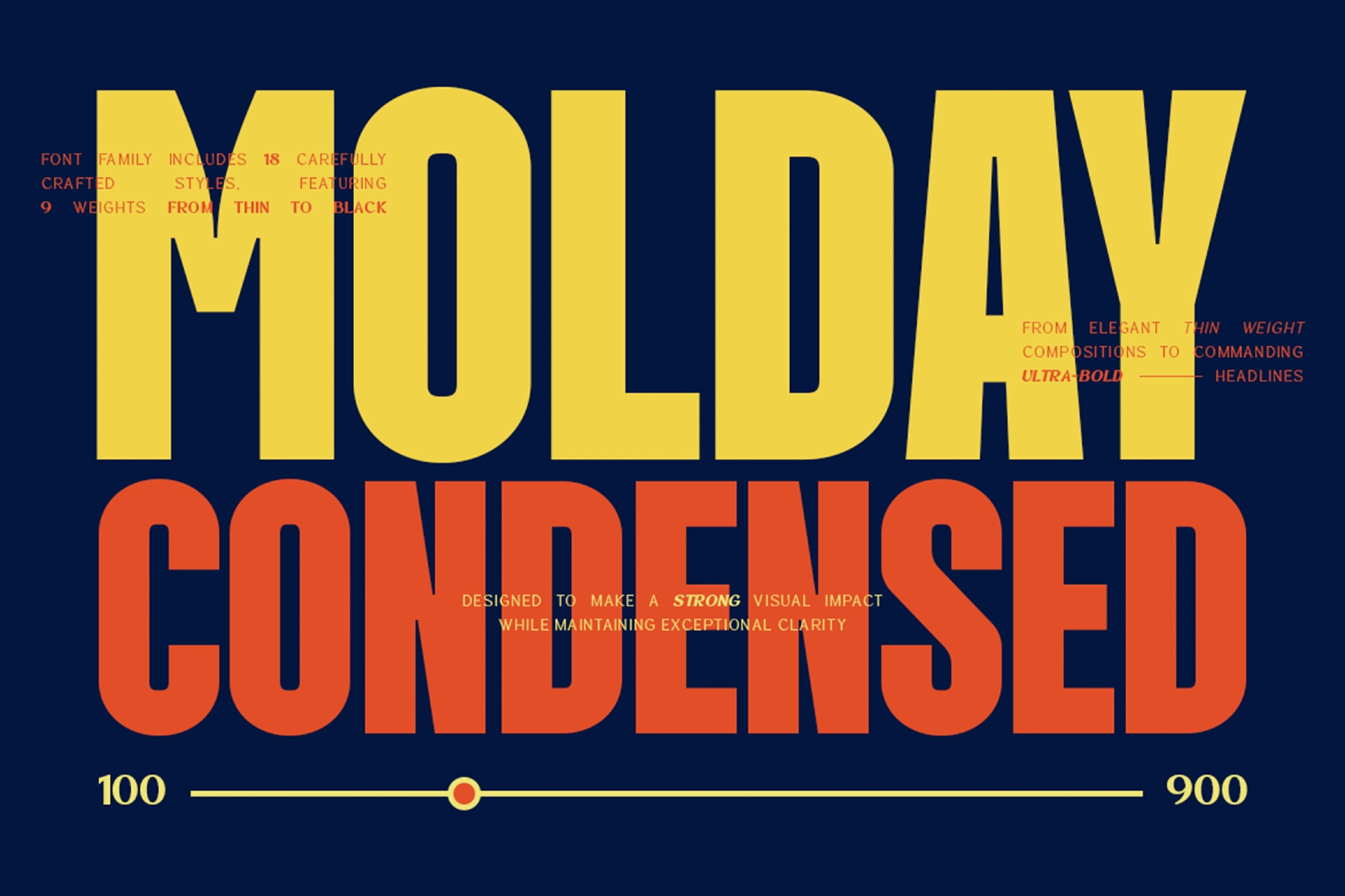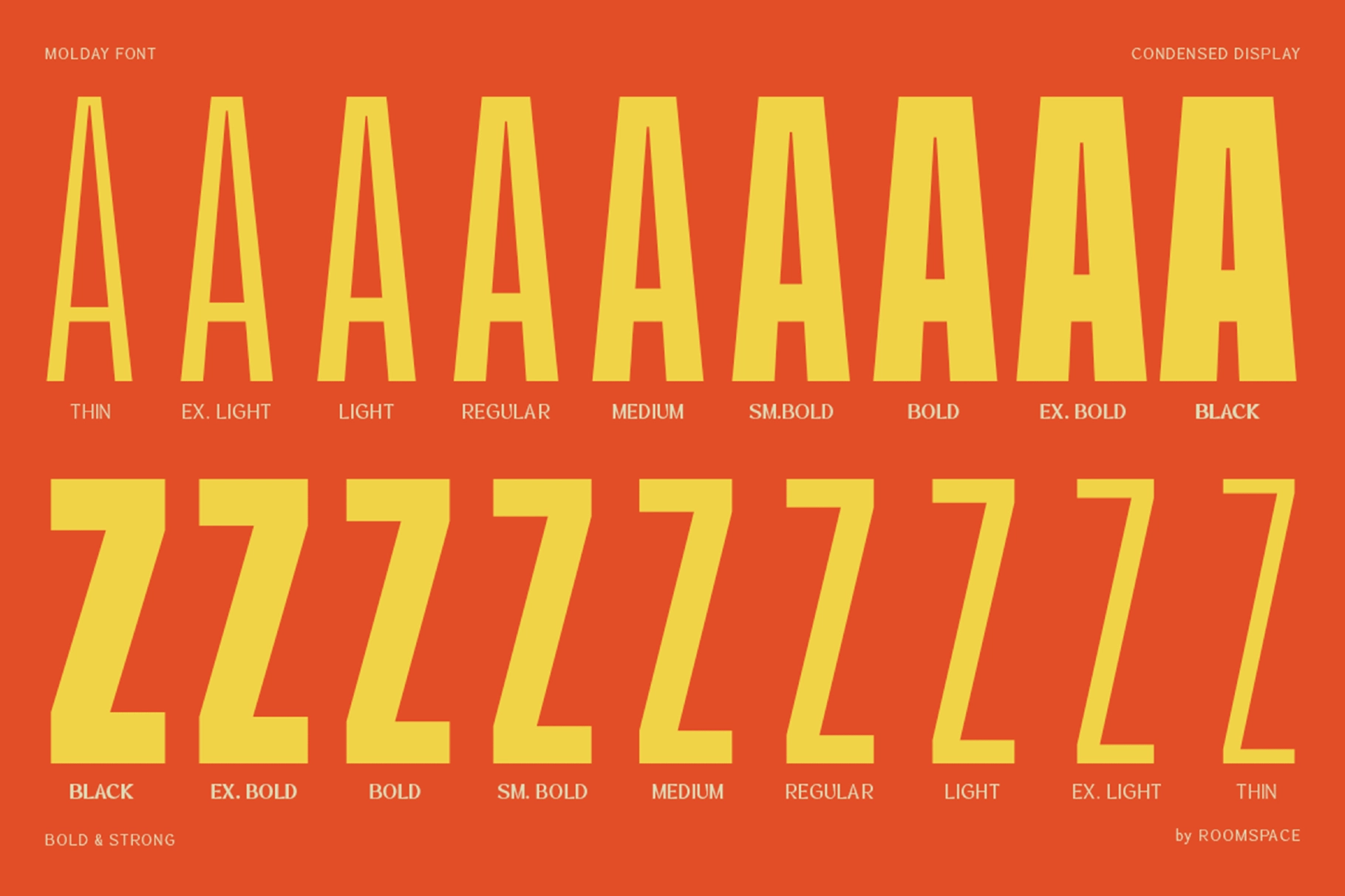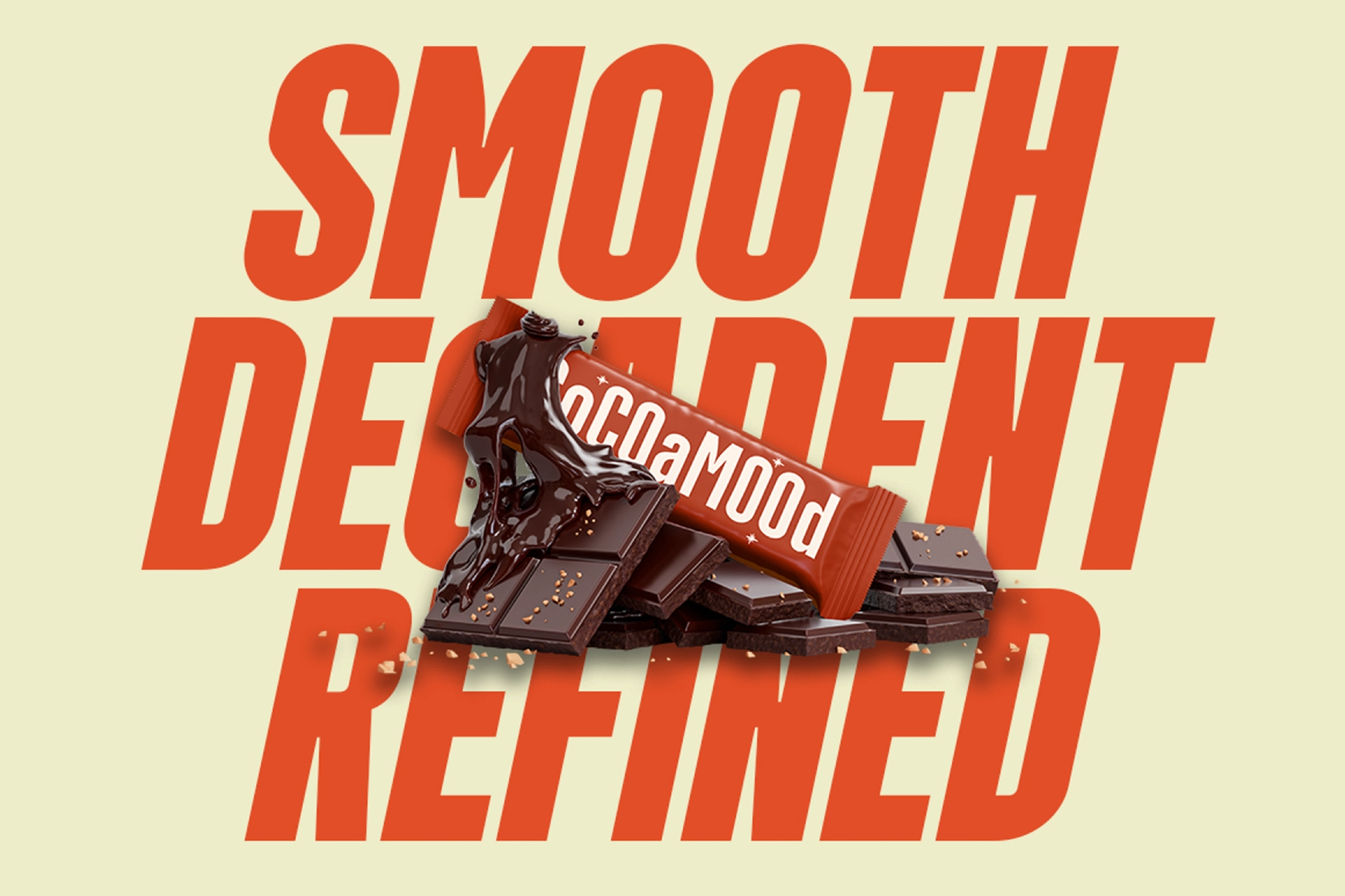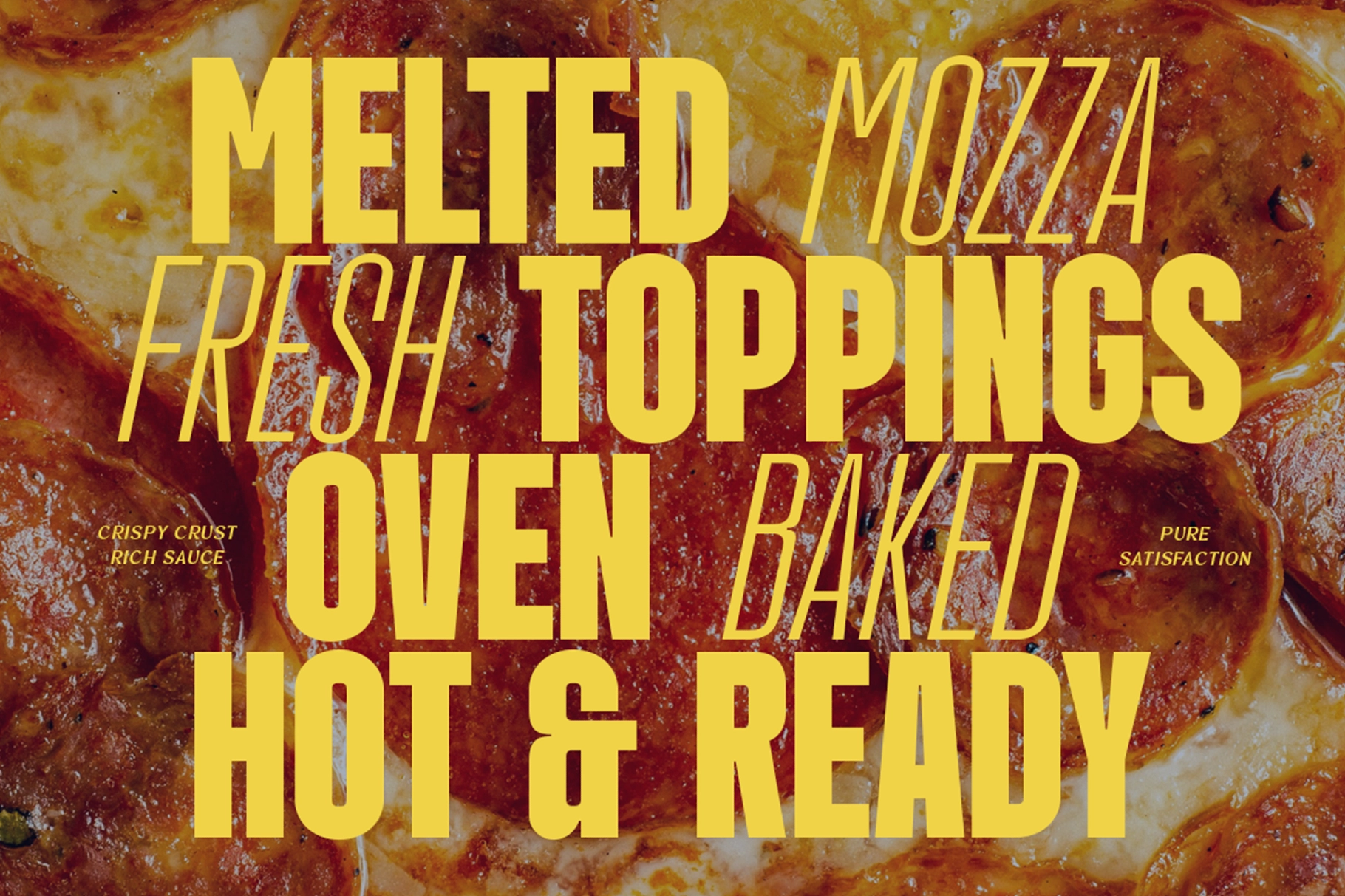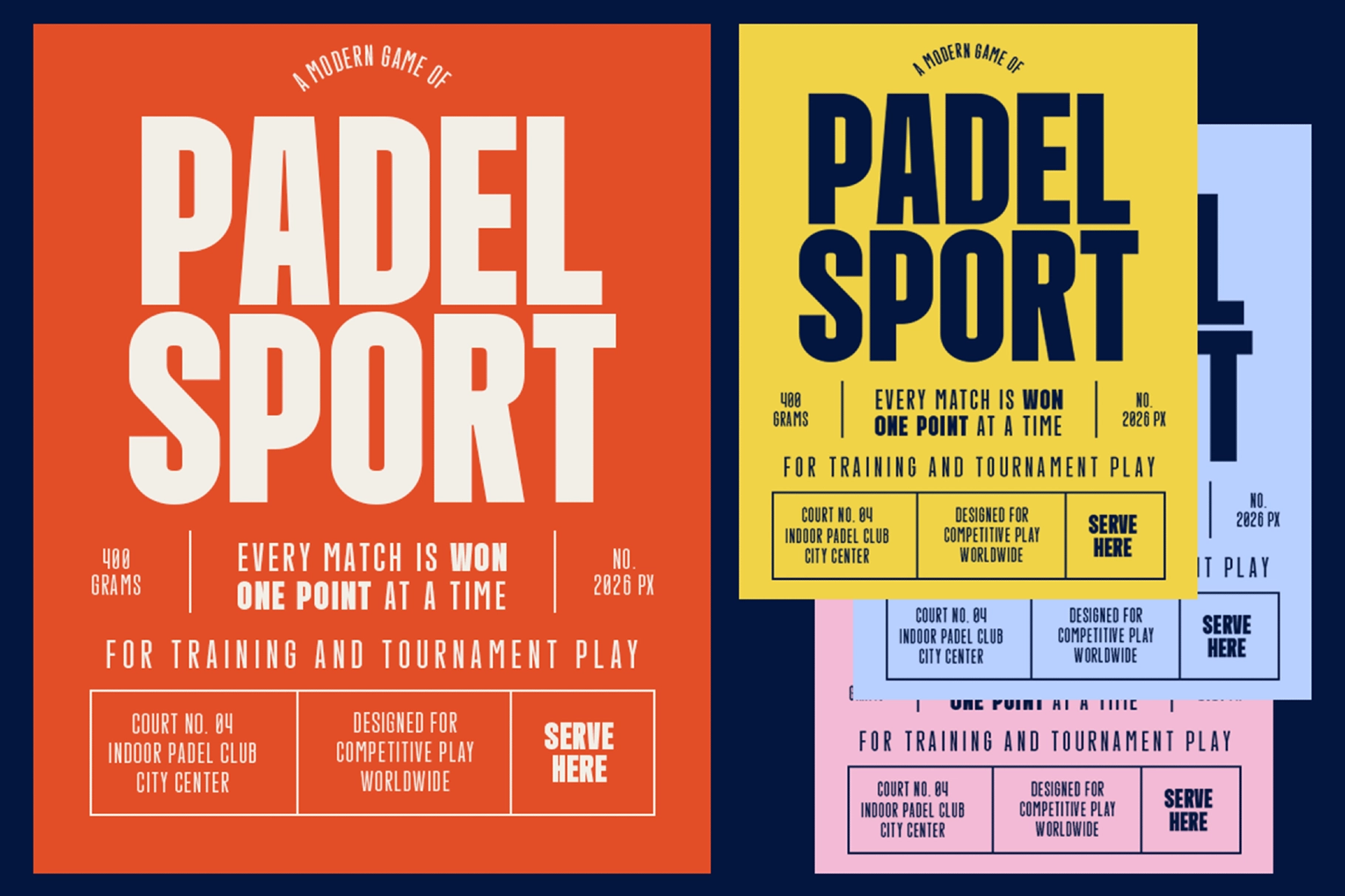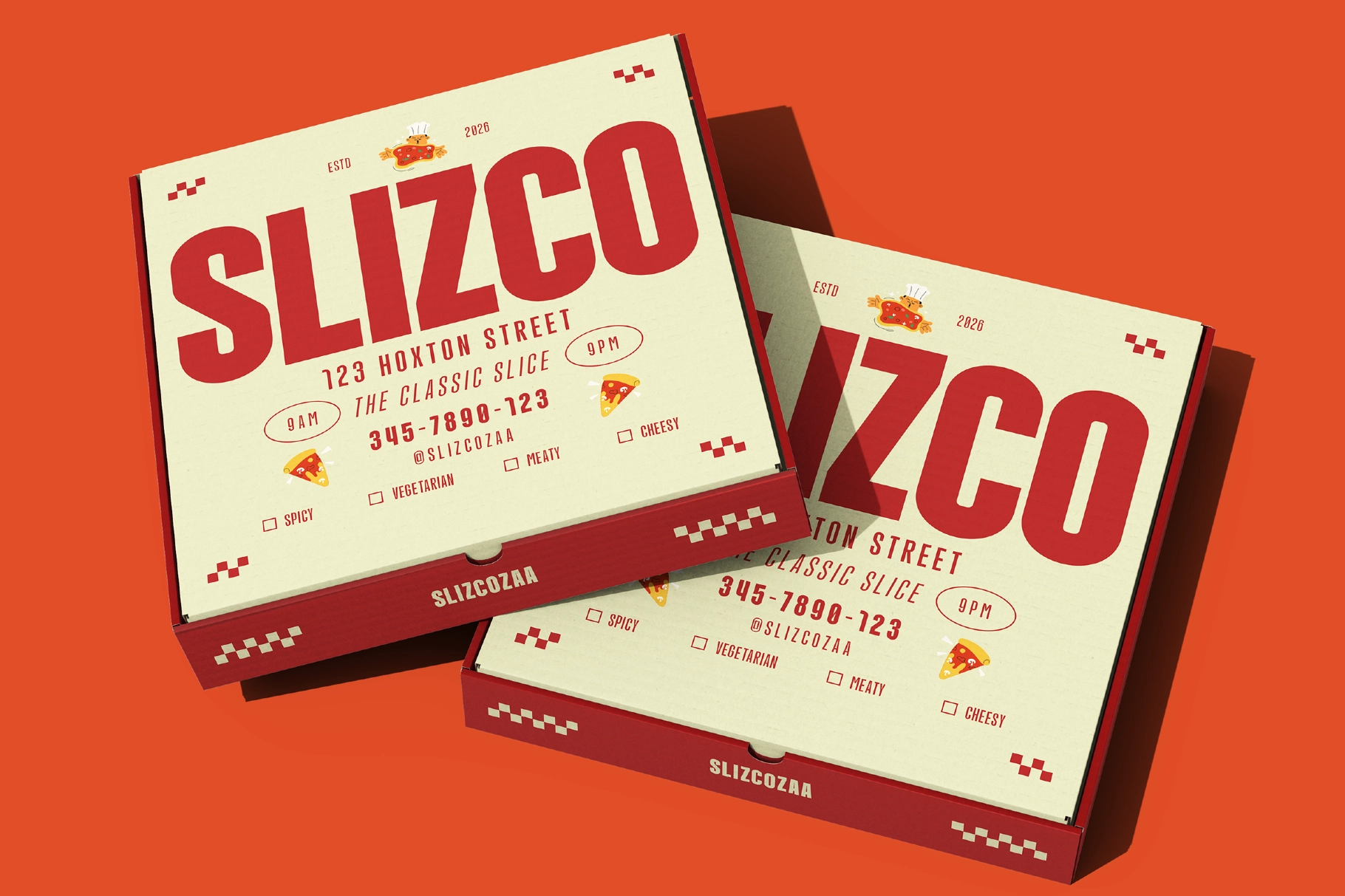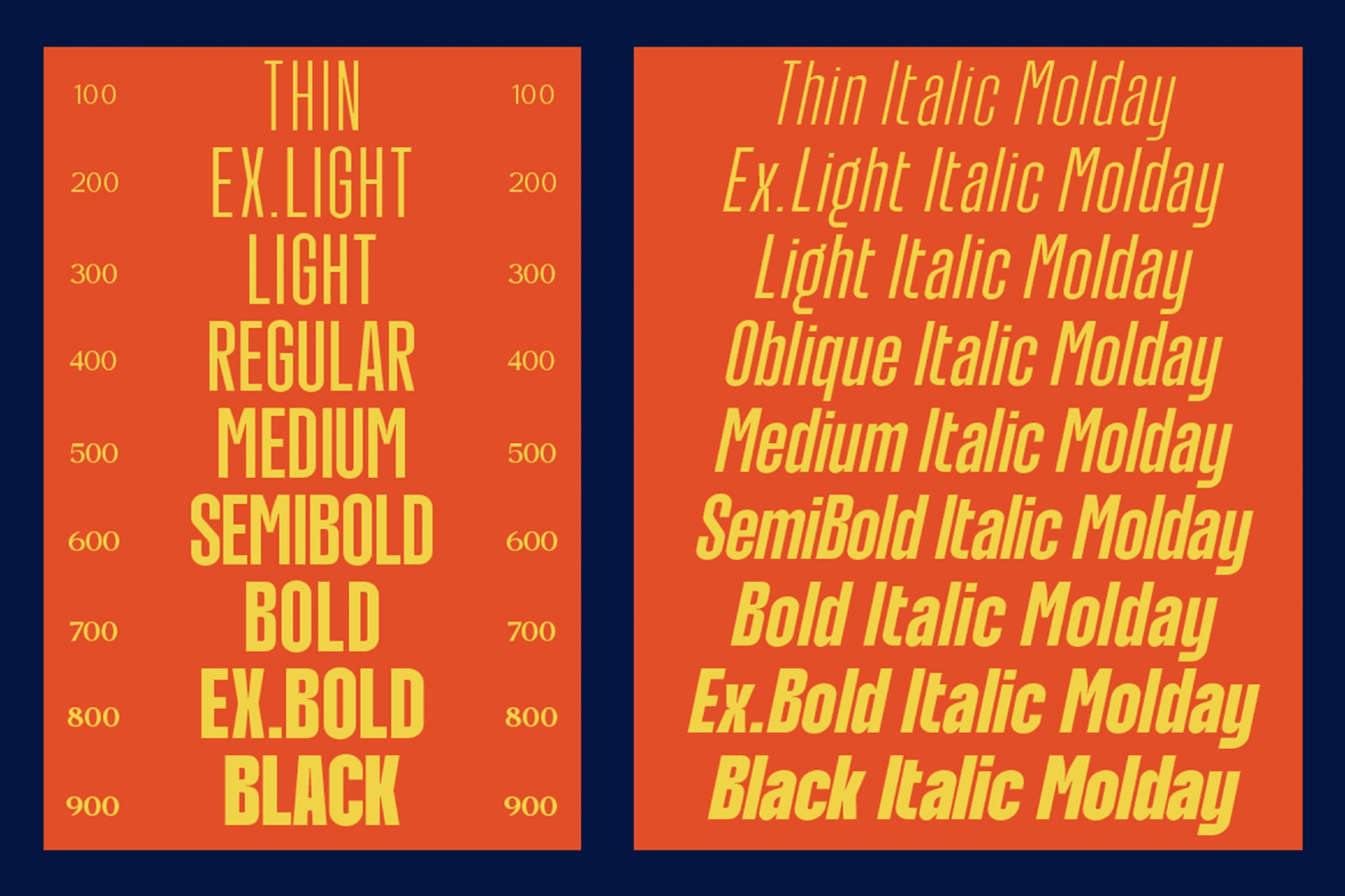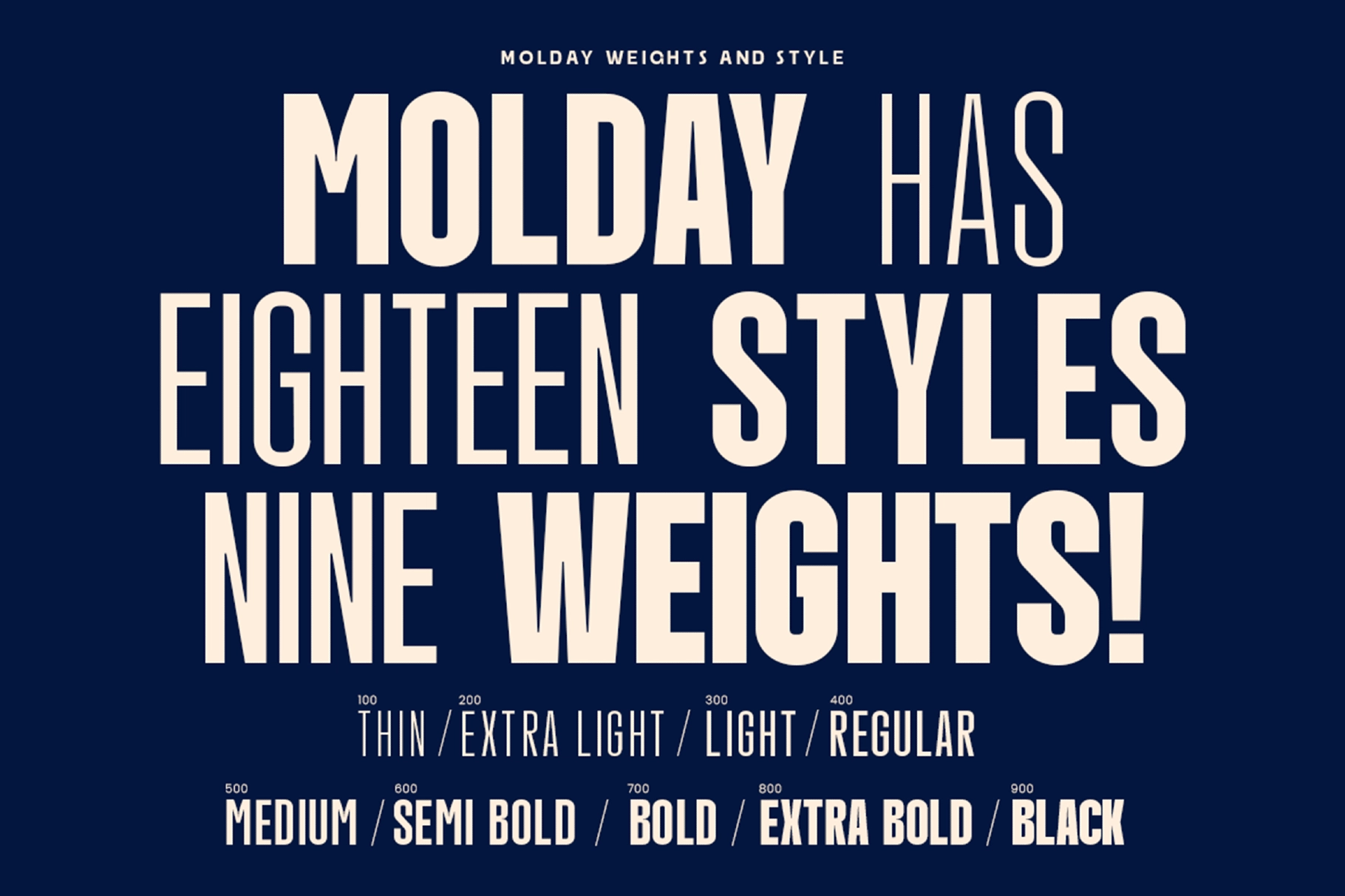
Molday - Condensed Sans Serif Font Family
Molday is a tall condensed sans serif font family built for narrow columns and heavy-set headlines. Nine weights run from Thin to Black with even proportions at every step, and each one pairs with a matching oblique, so the condensed structure reads the same whether the type stands upright or tilts.
Nine weights and their obliques cover everything from quiet body copy to full-block display type, so one family spans a layout end to end. Use it for sports team branding, packaging labels, magazine mastheads, event posters, restaurant menus, website headers, and social graphics.
- 9 weights from Thin to Black, each paired with a matching Oblique — 18 styles total;
- Uppercase & lowercase;
- Numerals, punctuation & symbols;
- Ligatures, ordinals & superscript figures